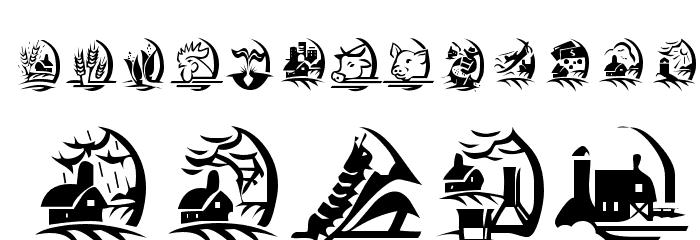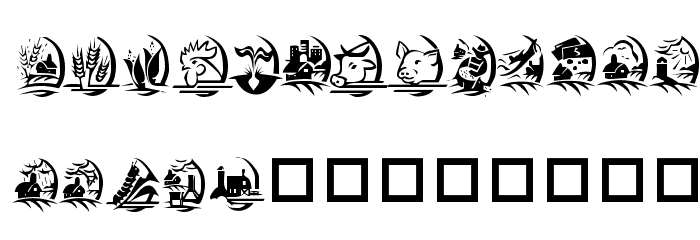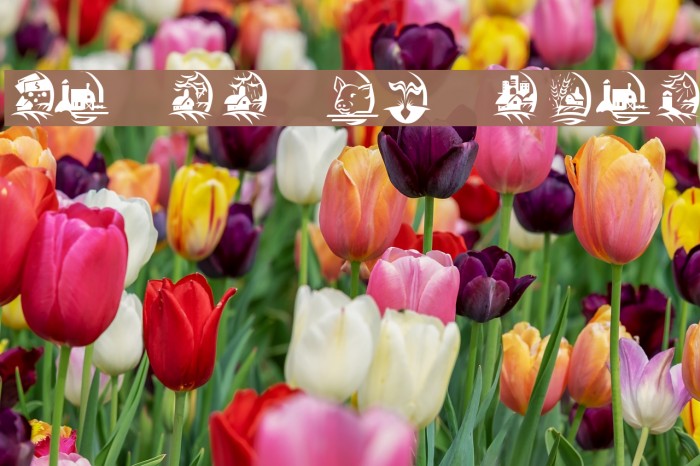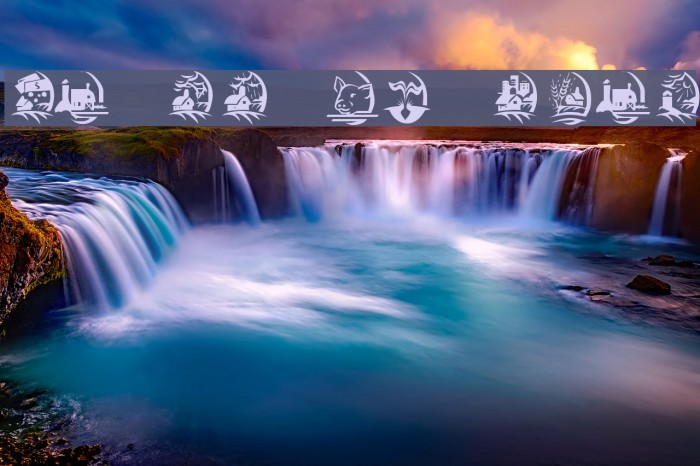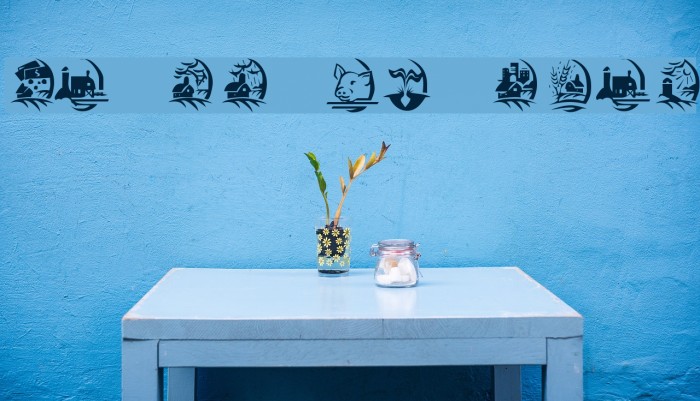
KR On The Farm Font
This decorative font features a series of farm-themed illustrations, each representing a different letter or character. The designs incorporate elements such as barns, crops, animals, and farming equipment, all encapsulated within a circular frame. The style is bold and graphic, with strong black lines and minimal detail, creating a striking visual impact. Each character is distinct, yet they all share a cohesive theme that evokes a rustic, agricultural setting. The font is ideal for projects that require a unique, thematic touch, particularly those related to farming, agriculture, or rural life.
A decorative font with farm-themed illustrations for each character.
- Proposed Projects: Ideal for agricultural branding, farm-themed event posters, educational materials about farming, or rustic-themed graphic design projects.
- Use Case: Logos, Headlines, Thematic Posters